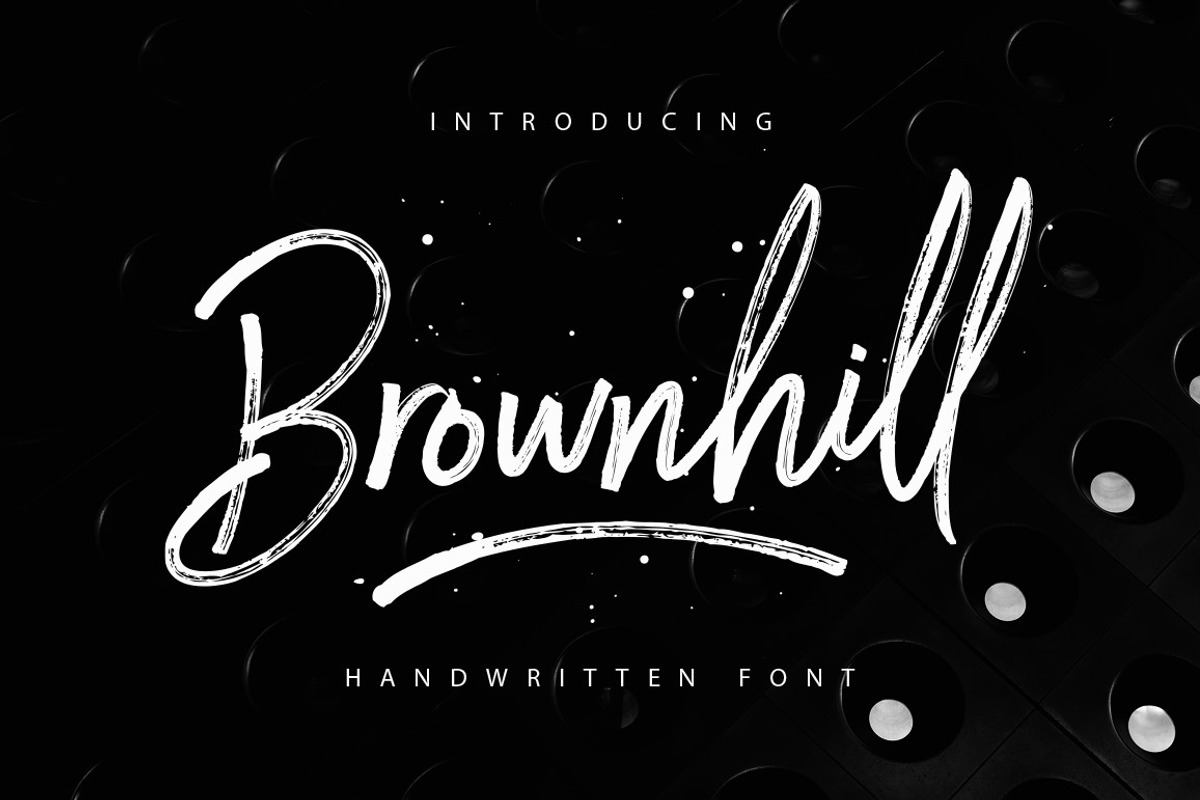
Brownhill Script Font Free Download is an elegant and flowing handwritten typeface that adds a personal and sophisticated touch to any project. Perfect for wedding invitations, logos, greeting cards, and more, Brownhill’s beautiful, fluid curves create a timeless, classic feel. Its versatile style can be used for both formal and casual designs, making it a go-to font for a wide range of creative work.